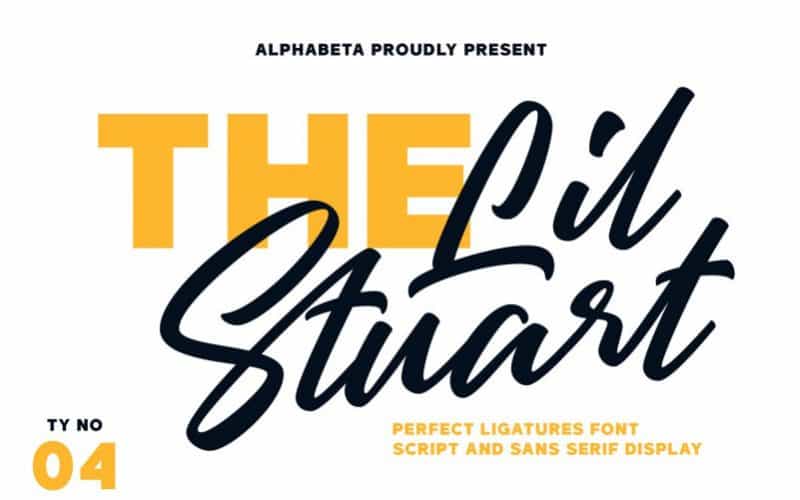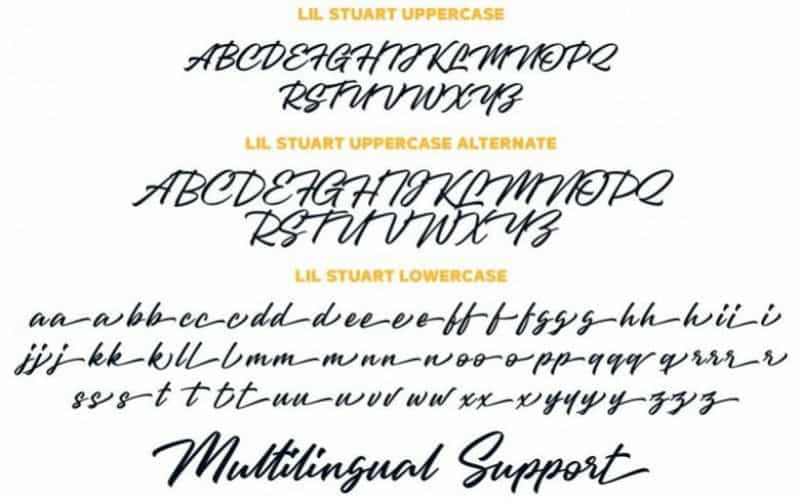
Discover Lil Stuart Ligature Font, part of the Sans Serif Calligraphy collection—a versatile and unique font perfect for adding a personal touch to your projects. Download it for free and enjoy crafting designs with style, from invitations to social media posts. This font is available exclusively for personal use, giving you the freedom to create without limits. Unlock your creativity with Lil Stuart Ligature Font today!
The free in writing letters, plus the perfect mixture and the modern style, were the inspirations of the given sentence. The typeface was made to look like handwriting by creating 167 ligatures (you can see it on preview) so you can mix and match it to make a better type on your design. I invented Lil Stuart to bring back the typographic style. Combo script and sans serif for a reduce your design.